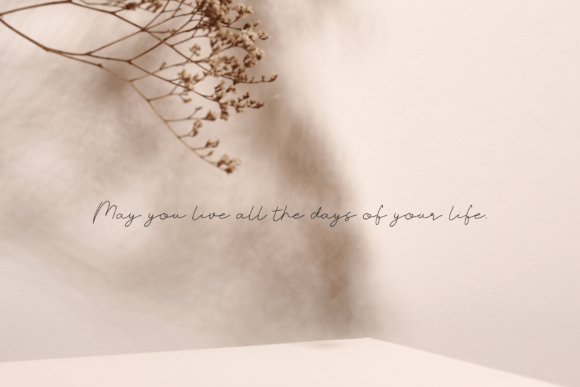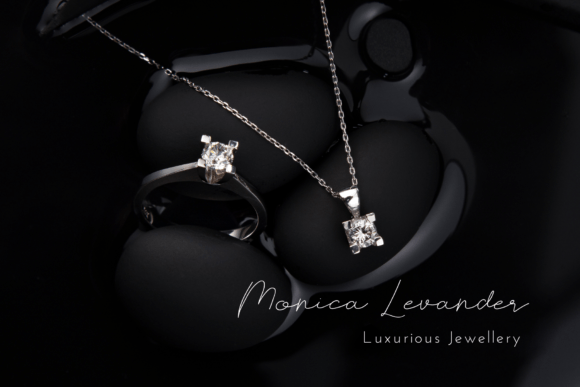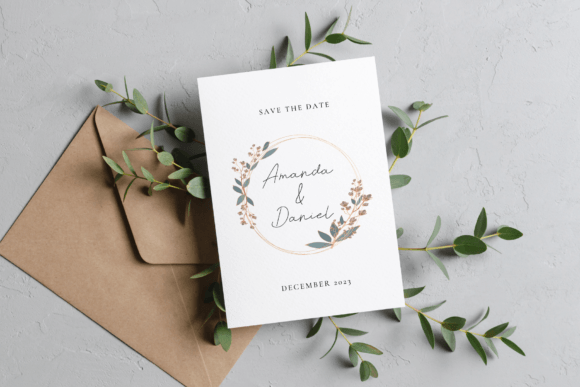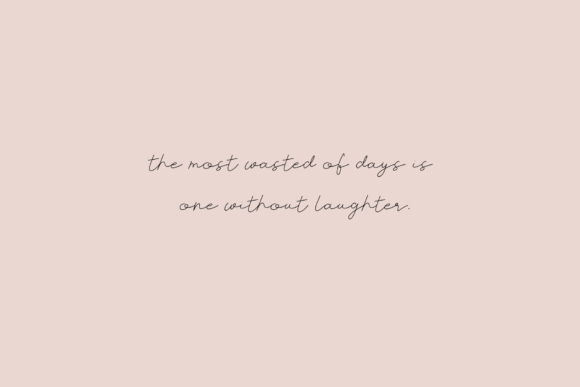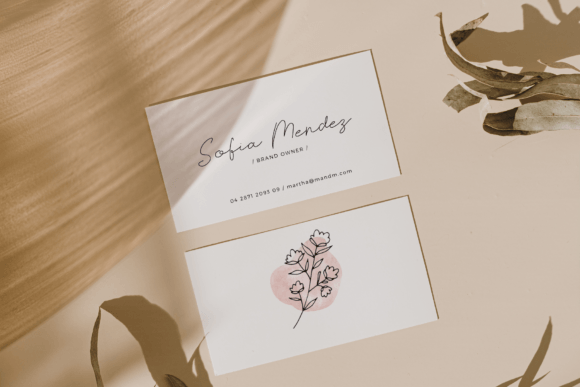
About Blueberry Point Font
Blueberry Point is a cute and dainty handwritten font. Use Blueberry Point to create super beautiful logos, branding, notebooks, journals, labels, stickers, blogs, quotes, greeting cards, tea towels, apparel, pillows, mugs, toys, posters, baby clothing, picture books and so much more…basically anything that requires a stylish and handwritten look!